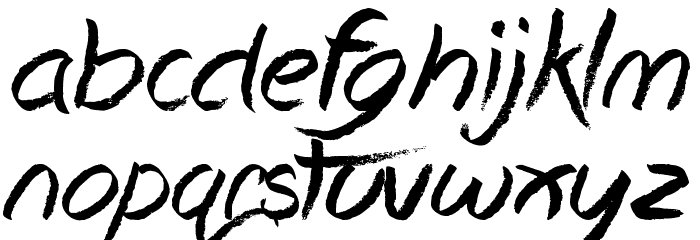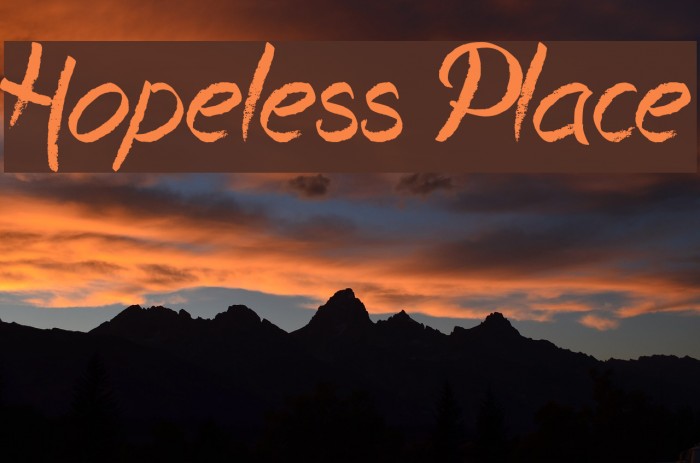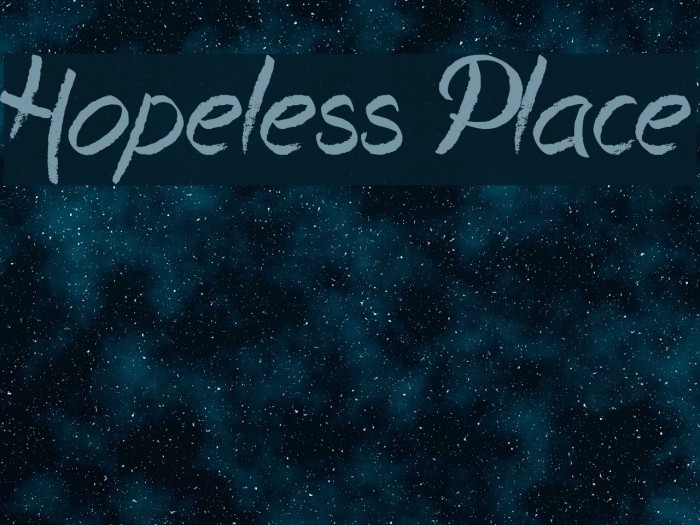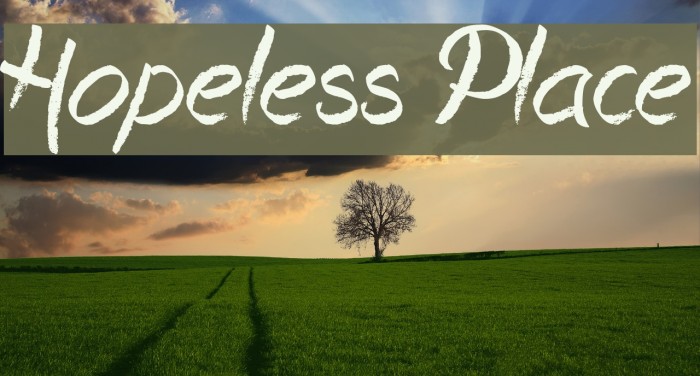
Hopeless Place Font
This font features a bold, expressive style that mimics the look of brush strokes, giving it a dynamic and energetic appearance. The letters are slightly slanted, adding a sense of movement and fluidity. The strokes are uneven, with varying thickness, which adds a handcrafted and artistic feel. The uppercase and lowercase letters maintain a consistent style, with some characters having unique flourishes that enhance the overall aesthetic. This font is ideal for projects that require a personal touch or a creative flair.
A bold, brush-style font with dynamic, handcrafted strokes.
- Proposed Projects: Ideal for artistic projects, branding, posters, and creative designs that require a personal touch.